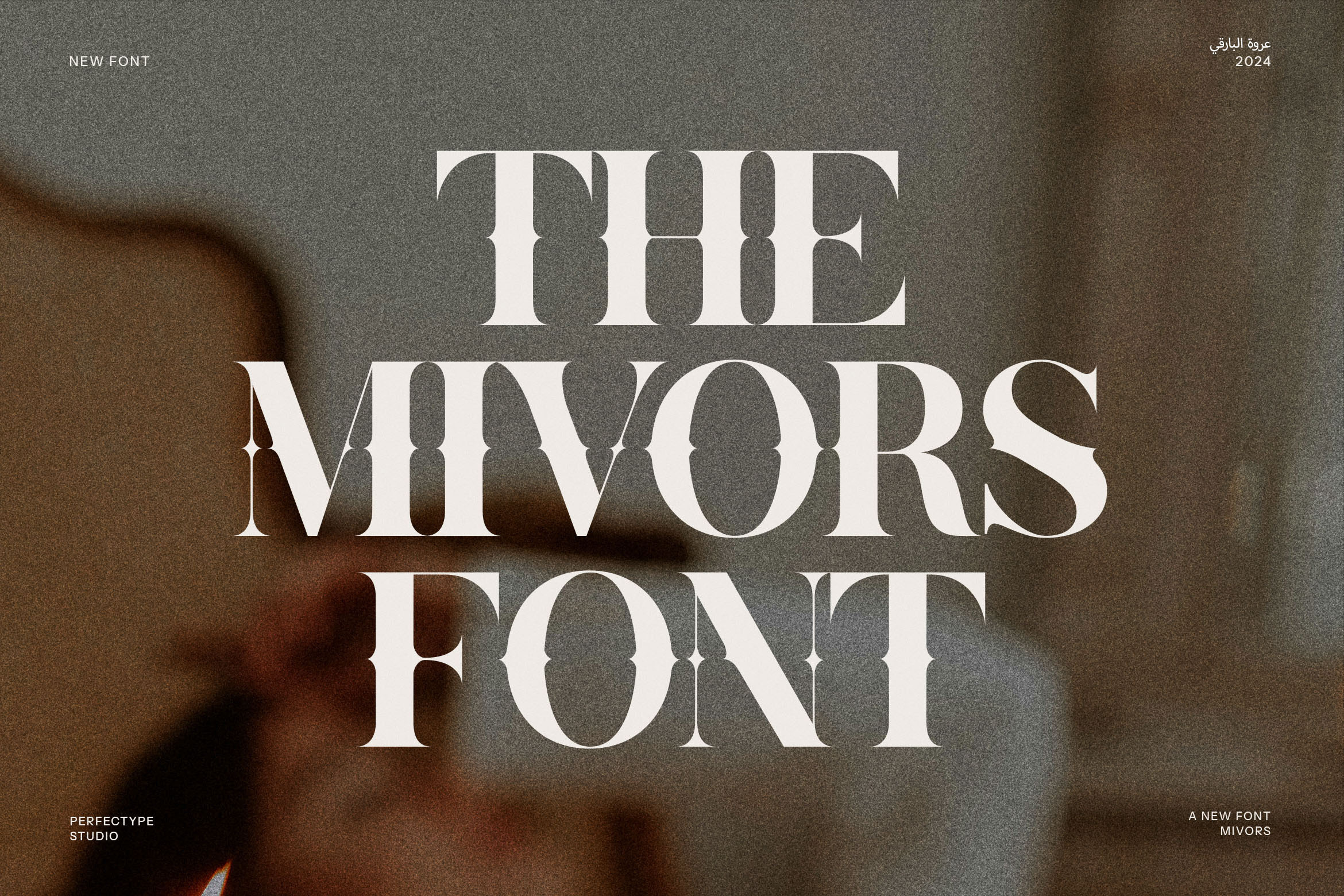
The Mivors Serif Font
Mivors Elegant Serif Font: A Perfect Blend of Modern Sophistication and Timeless Charm
Mivors Elegant Serif Font is a beautifully designed typeface that effortlessly combines modern elegance with vintage sophistication. Featuring classic serifs and refined curves, this font is ideal for projects that require a touch of style and distinction. Whether you're creating a luxury brand or working on a creative design, Mivors offers the perfect balance of beauty and functionality.
This versatile serif font is perfectly suited for a variety of applications including branding, logos, website design, magazines, and advertising. Its unique aesthetic makes it an excellent choice for industries like fashion, beauty, food, and lifestyle, where first impressions matter and visual appeal is paramount. Mivors is also well-suited for boutiques, restaurants, product packaging, and high-end marketing materials, where it can help elevate your design projects to the next level.
With its stylish, yet highly readable letterforms, Mivors Elegant Serif Font excels in both headline and body copy usage. It shines in magazine layouts, social media graphics, and creative portfolios, offering versatility for designers looking to create compelling and memorable content.
Mivors Elegant Serif Font is a perfect choice for those who seek a classic yet modern font that can make a lasting impression in both digital and print formats. Add a touch of refined elegance to your next design project with Mivors and create designs that stand out from the crowd.